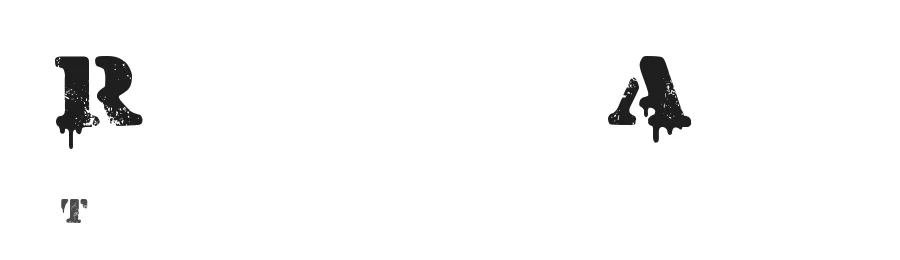
About Fingered Flesh Font
Fingered Flesh is a decorative font designed by Mr.Fisk Fonts. It includes 32 glyphs, a regular weight, and TTF (TrueType) format. Fingered Flesh is free to download; check the license details on this page before commercial use. Decorative fonts like Fingered Flesh work best for logos, posters, packaging, and standout headlines.
Fingered Flesh Font is a decorative font that shines as a display or heading face. Pair it with a clean sans-serif or serif font for body text β the contrast creates a clear hierarchy while the two styles stay balanced and easy to read.
Fingered Flesh Font
Fingered Flesh Font is a decorative typeface by Mr.Fisk Fonts, ideal for logos, invitations, branding, and creative projects.